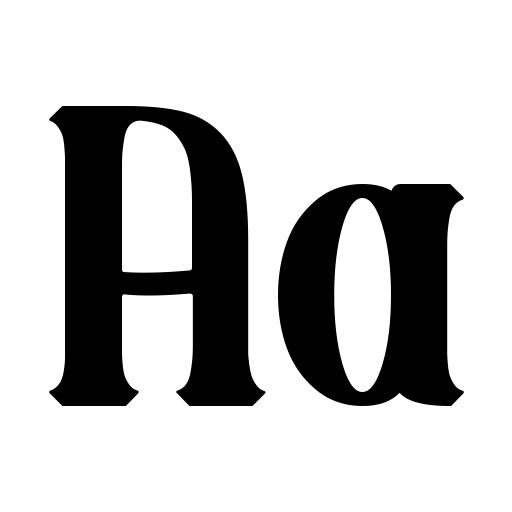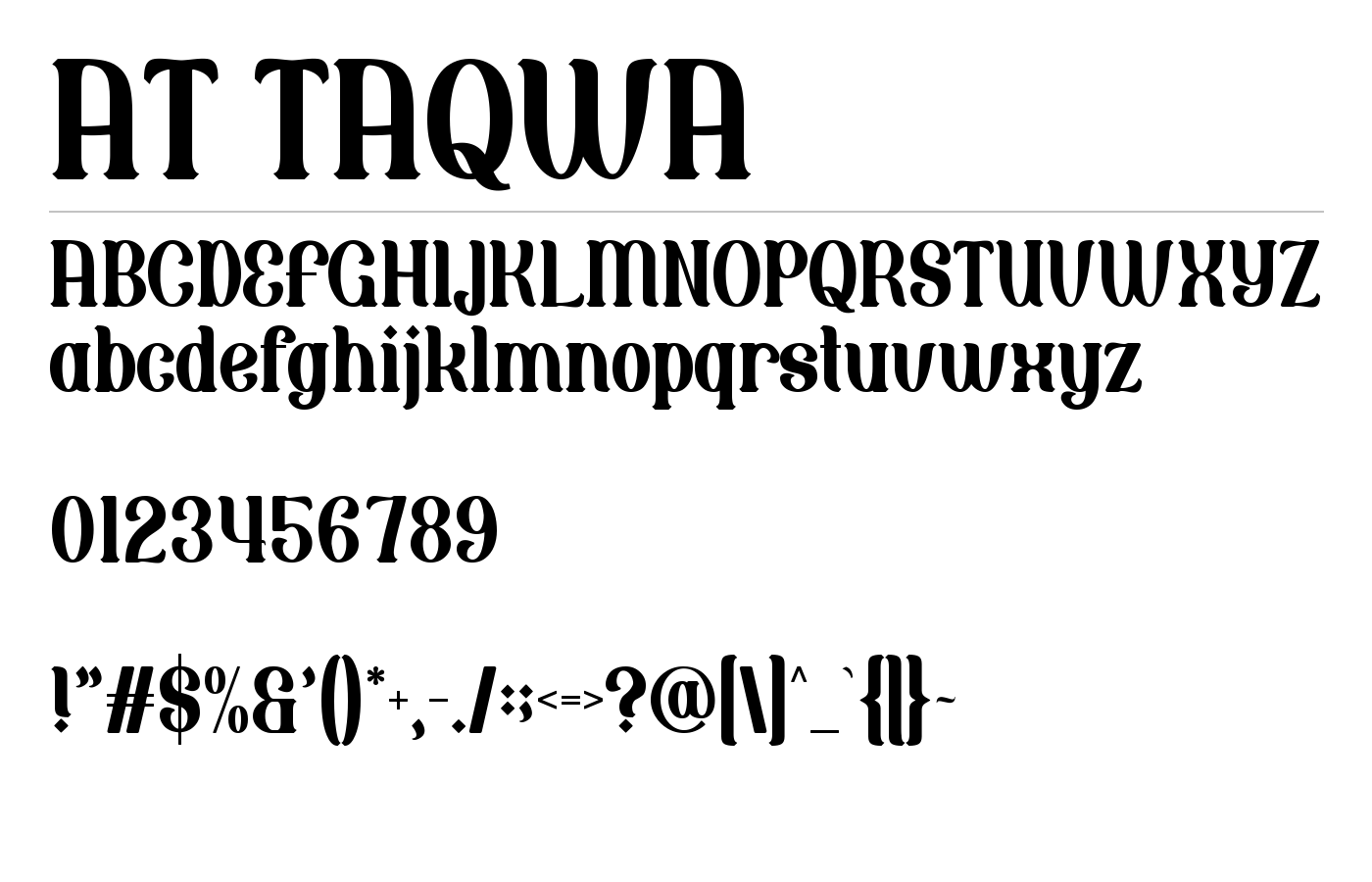
AT TAQWA is a bold, narrow serif font with a vintage, decorative character. Its tall, condensed letterforms feature high contrast between thick and thin strokes along with stylistic, bracketed serifs, giving it a distinctive and elegant feel ideal for impactful headlines, logos, and branding with a classic or artistic touch. This font works best where a strong, refined statement is needed, such as in posters, packaging, or editorial titles.
AT TAQWA Font
About AT TAQWA Font